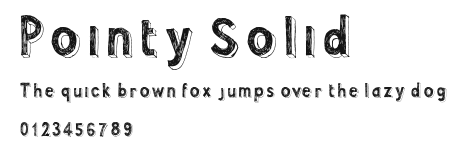
• Font Name: Pointy Solid
• Designer: James Beardmore - Pointy Design
About Pointy Solid.ttf
Pointy Solid.ttf is a modern, elegant sans-serif font designed for ultimate readability and visual harmony. Perfect for branding, headlines, web design, and print materials.